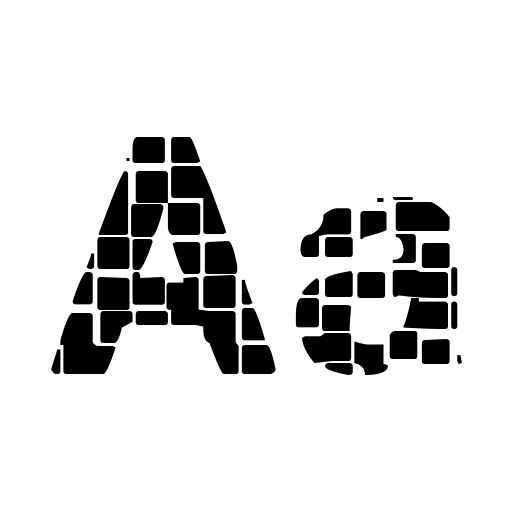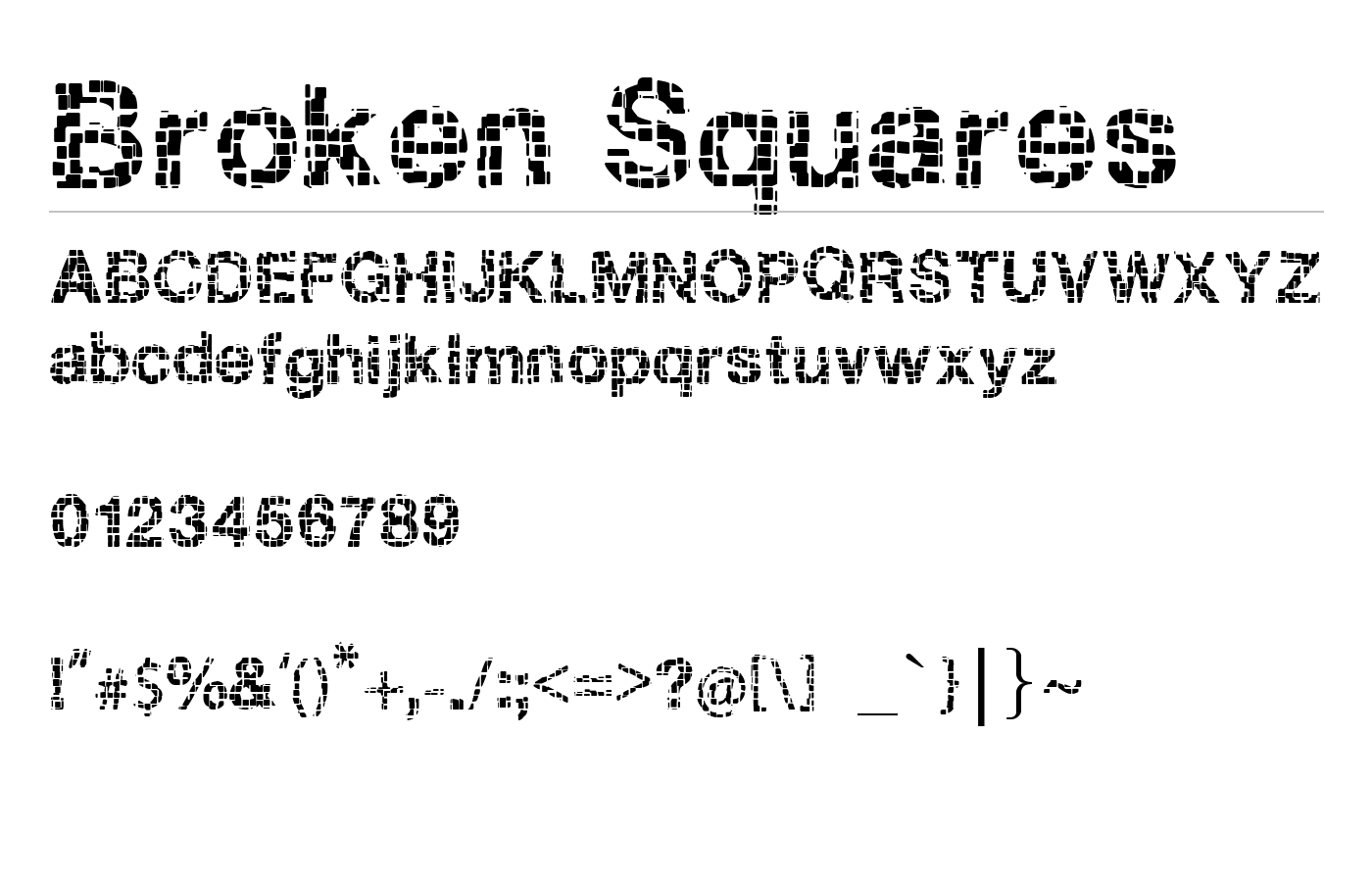
Broken Squares is a unique sans serif font characterized by its fragmented, pixelated square texture that creates a modern, digital, and slightly distressed appearance. With a regular weight and normal width, it features a consistent x-height and geometric letterforms that convey a tech-savvy, futuristic vibe, making it ideal for eye-catching headlines, digital media, and creative branding that aims to stand out with a bold, unconventional style.
Broken Squares Font
About Broken Squares Font